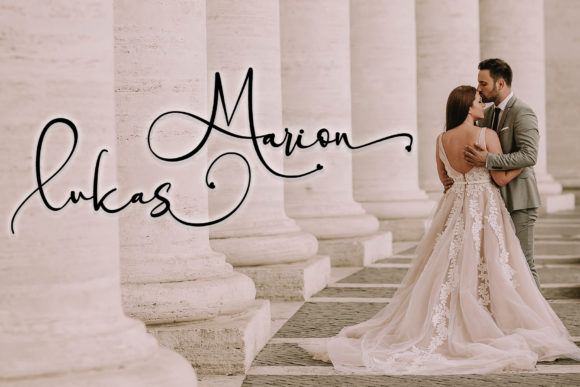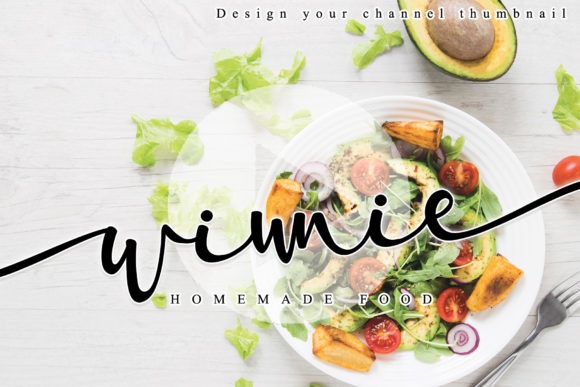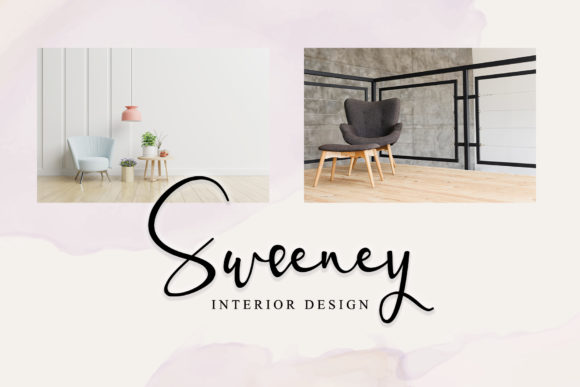
Introduction to Love Miracle Font
Have you ever been working on a creative project, pouring your heart and soul into it, only to feel like something’s missing? You’ve got the perfect message, the right colors, but the typography just isn’t quite right? That’s where the Love Miracle Font comes in – a beautiful light handwritten font that’s sure to elevate your designs and leave a lasting impression.
With its classic style and friendly feel, the Love Miracle Font is the perfect addition to any design project. Whether you’re working on a high-quality brochure, a website with a transparent background, or a social media graphic, this font is sure to bring a touch of sophistication and elegance to your work. And the best part? It’s available for free download, making it an invaluable resource for designers of all levels.
As a valuable design resource, the Love Miracle Font offers a wealth of special features, including alternate glyphs and ligatures, making it easy to customize and get the look you want. So why settle for a generic font when you can have a high-quality, unique option like the Love Miracle Font?
Key Features of Love Miracle Font
- High-quality, hand-drawn design with a romantic and whimsical touch, making it perfect for creative projects.
- Unique characteristics include intricate details, flowing lines, and a mix of cursive and script elements, making it stand out from other fonts.
- Perfect for creating eye-catching headings, titles, and body text in various design projects, from wedding invitations to creative blogs.
Honest Review: Love Miracle Font
I recently stumbled upon the Love Miracle Font, and I must say it’s been a game-changer for my creative projects. The moment I laid eyes on it, I knew I had to give it a try. Let’s dive into the details!
- High-quality design: The font is crisp, clear, and has a beautiful, elegant feel to it.
The Love Miracle Font is a true gem. It’s perfect for adding a touch of romance and whimsy to your creative projects. I’ve used it for everything from wedding invitations to social media graphics.
- Limited character set: While the font is beautiful, it’s only available in a limited character set, which can be a bit restrictive.
- No bold or italic options: If you need to emphasize certain text, you’ll need to use a separate font or get creative with formatting.
Overall, I’m thoroughly impressed with the Love Miracle Font. It’s a valuable addition to any designer’s toolkit, and I highly recommend giving it a try.
- Valentine’s Day and anniversary designs
- Love-themed social media graphics and posts